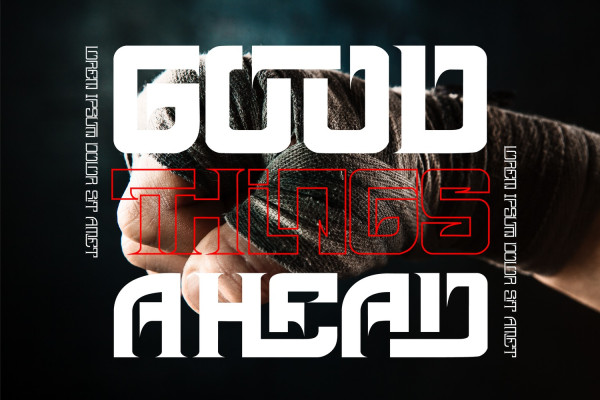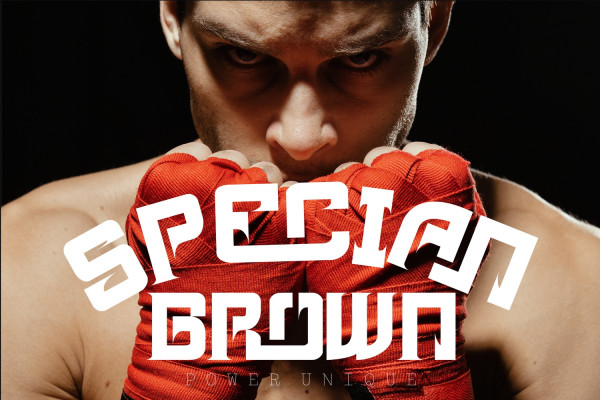
Power Unique Font
Power Unique Font is a modern & unique serif font. It’s a stylish and elegant serif typeface. With fluid, graceful strokes, it captivates with its contemporary charm and timeless sophistication. This typeface is perfect for an elegant & luxury logo, book or movie title design, fashion brand, magazine, clothes, lettering, quotes, and so much more.
Power Unique was built with OpenType features and includes 200 ligatures, alternate, numbers, punctuation, and it also supports other languages.
AC AD AL AN AR AS AT AU AV BE CA CE CH CO CT DE DI EA EC ED EE EL EM EN EP ER ES ET FE FO FR GE HA HE HI HO IE IC IL IN IO IR IS IT JU KE LA LE LI LL LO LY MA ME MI NC ND NE NG NO NT NS OC OF OM ON OO OP OR OT OU OW PA PR RA RD RE RI RO RS RT SE SH SI SO SS ST TA TE TH TI TO TR TT UM UN UR VE WI WO